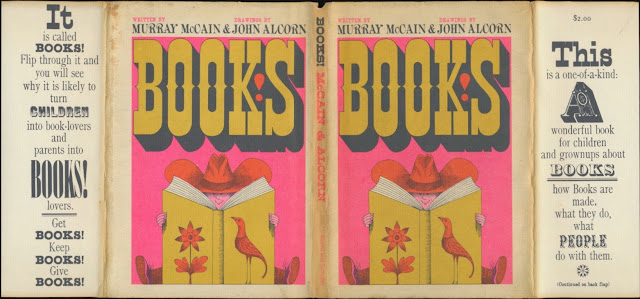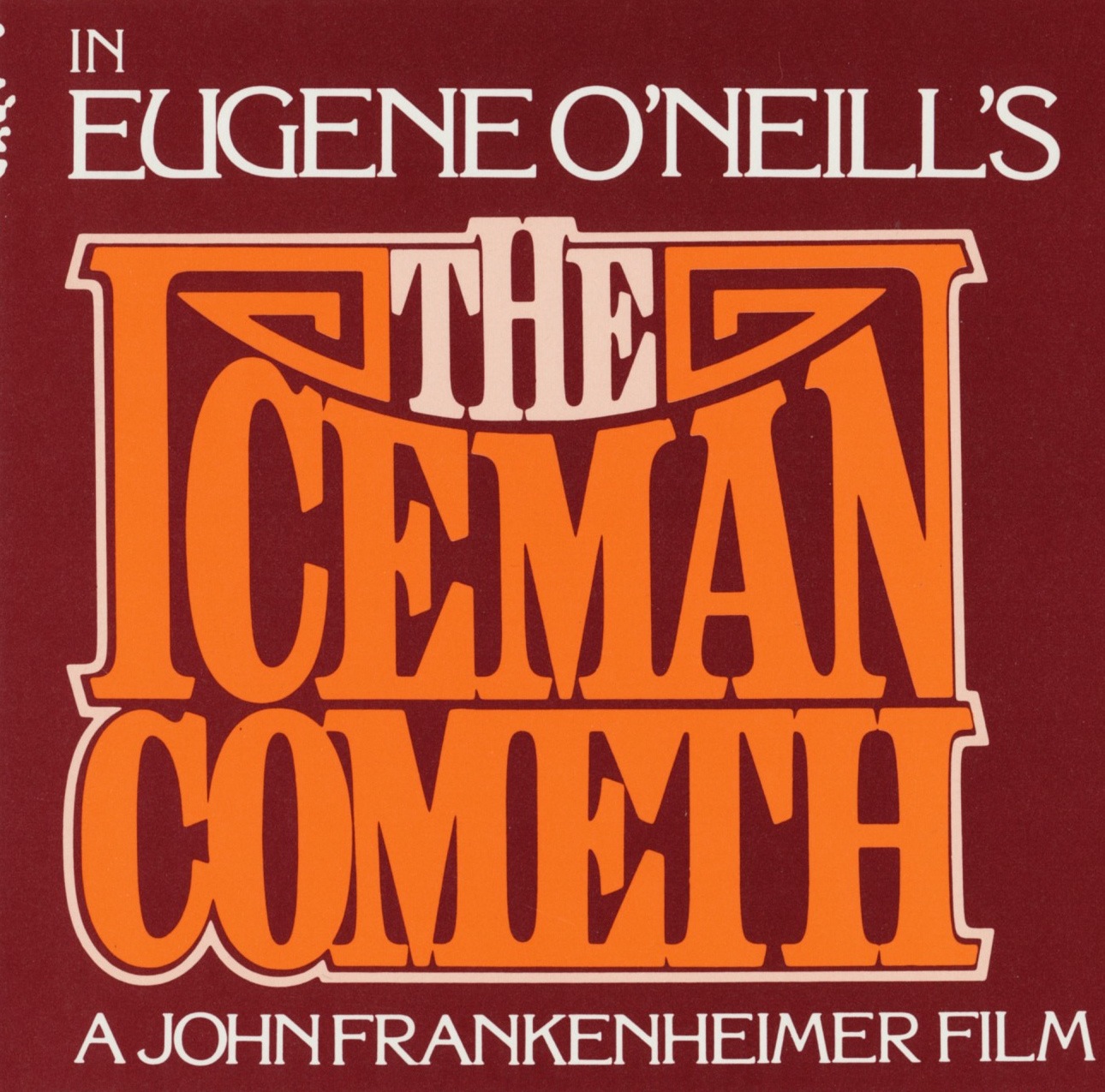
My 1979/1980 Christmas and New Year card was printed front and back and used the typeface ITC Serif Gothic, which I modified by removing the serifs. My name was set in ITC Zapf Book. The star was hand-cut. Below is a scan of two cards.
Lettering: New Testament
In the early 1970s, I found the 1971 album, New Testament by the Ventures, in a cut-out bin. What interested me was what was on the back: a blue pencil rendering of the title lettering with notations on the ellipse size and degree. At the time I was a graphic design student at Arizona State University and had never seen anything like it. Compared to the finished lettering, there were a few changes: the lowercase "e" is uniform; the "s" connects to the "e"; and the lowercase "n" has a vertical stroke. Presumably, Robert Lockart did the lettering, too.
Typography: John Alcorn’s Books!
Dust jacket and selected pages from
Books!
Murray McCain
Illustrated by John Alcorn
Simon and Schuster, 1962
Lettering: Claire Szep, Hidden in Plain Sight
Claire Szep was the first wife of Al Feldstein, the artist, writer and editor of numerous EC Comics titles and the editor Mad Magazine. I stumbled upon her name in Jumbo Comics #56, October 1943, while researching the work of Chu Hing, who was thought to have inked one of the stories. Szep’s name appeared in the third story, featuring secret agent ZX-5, and was “hidden” on two signs in the first panel of page eight.
I checked the Grand Comics Database for additional information on this story and the indexer said: “Note that Oriental lettering on sign [panel 1, page 8] clearly spells out ‘CLAIRE.’ Is it possible that this is by Claire Moe?” I knew nothing about Szep so I turned to Google and found two references. She was married to Feldstein, according to his entry in Who’s Who in U.S. Writers, Editors & Poets (1989):
Other examples of “hidden” images and words can be seen here.
I checked the Grand Comics Database for additional information on this story and the indexer said: “Note that Oriental lettering on sign [panel 1, page 8] clearly spells out ‘CLAIRE.’ Is it possible that this is by Claire Moe?” I knew nothing about Szep so I turned to Google and found two references. She was married to Feldstein, according to his entry in Who’s Who in U.S. Writers, Editors & Poets (1989):
September 2, 1944, Buille, Mississippi, Arkansas
December 9, 1944, Brooklyn, New York
Based on your observations of the signage and the biographical info, Alex, itwould seem safe to say that he had a hand in it, to be sure. Based on the date,he would have been 17 years old when this was drawn. I think it’s unlikelythat he was involved with the tasks we customarily associate with “pencils” or“inks”. Given his age, this would be at the VERY beginning of his career incomics and long before he had a recognizable style. I would hesitate to assigna specific contribution, but given the ornateness of the backgrounds, it seemslikely (and historically sound) that he was providing “assists” to the majorartists in this Iger Shop-produced effort. That might include filling in blacks,inking of secondary figures, inking of backgrounds, etc. I’d speculate this mightbe one of his first jobs and that he, a young kid fresh out of high school, wastrying his best to impress.
VERY good catch on the “SZEP”. Hames [Ware] and I saw it, but had no ideaof what it meant. There are several other fake oriental characters that MIGHTbe read as “AF”. Again, good catch and thanks for sharing.
I turned to Ancestry.com to learn more about Szep and Feldstein. According to the Social Security Death Index, she was born August 14, 1926, in New York state. In the 1930 U.S. Federal Census, she was the only child of Edward, a restaurant waiter, and Margaret and lived in New Haven, Connecticut at 91 Bishop Street. The 1940 census recorded them in Brooklyn, New York at 10 Ocean Parkway, where they had lived since 1935.
Lettering: American Film Theatre
Eight of the fourteen titles, from 1973 to 1975,
designed by Herb Lubalin and Alan Peckolick.
Text font is ITC Korinna which was designed
by Ed Benguiat and Vic Caruso.